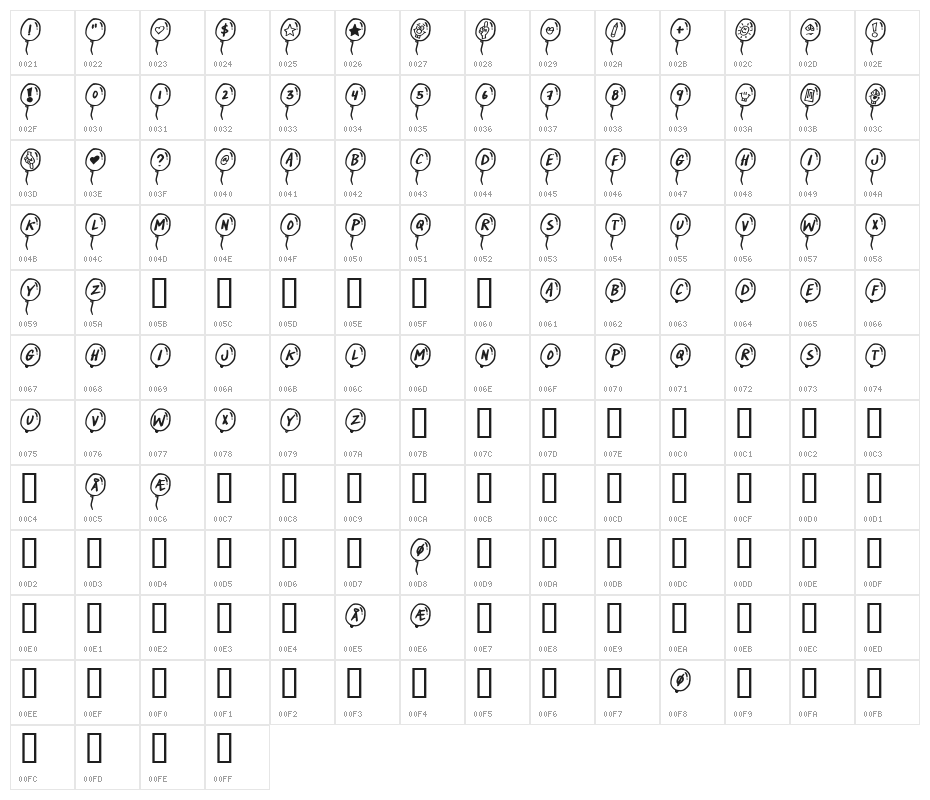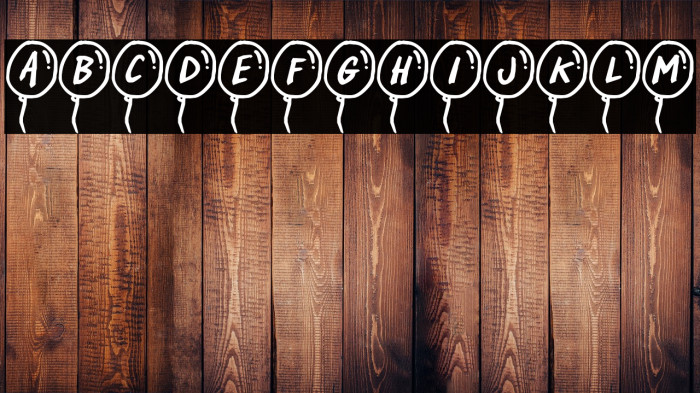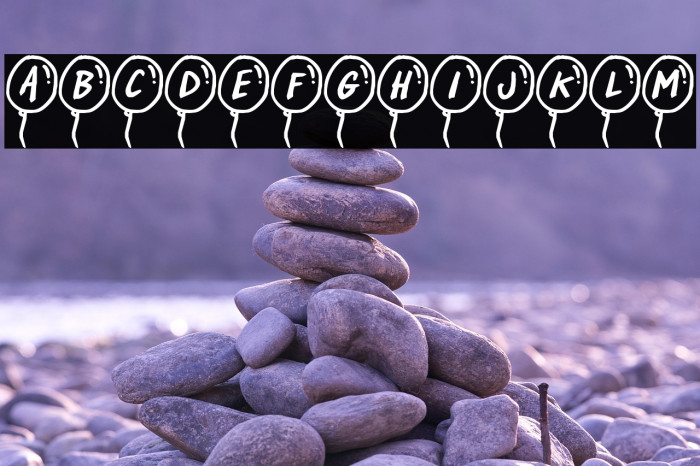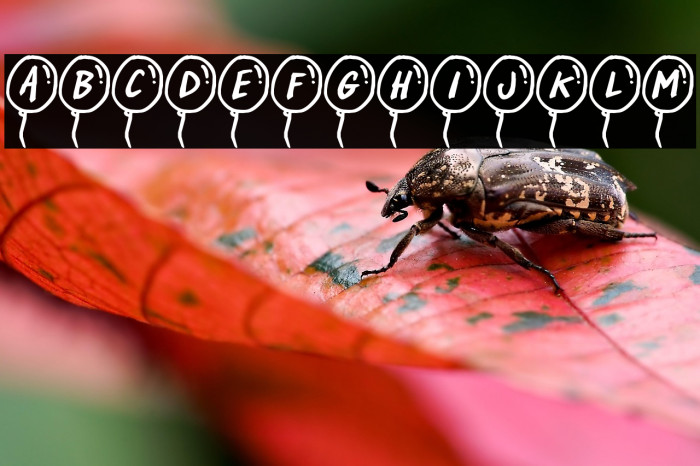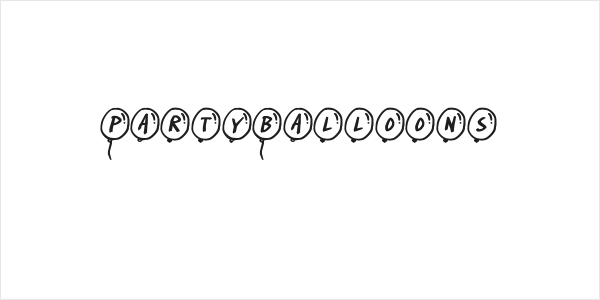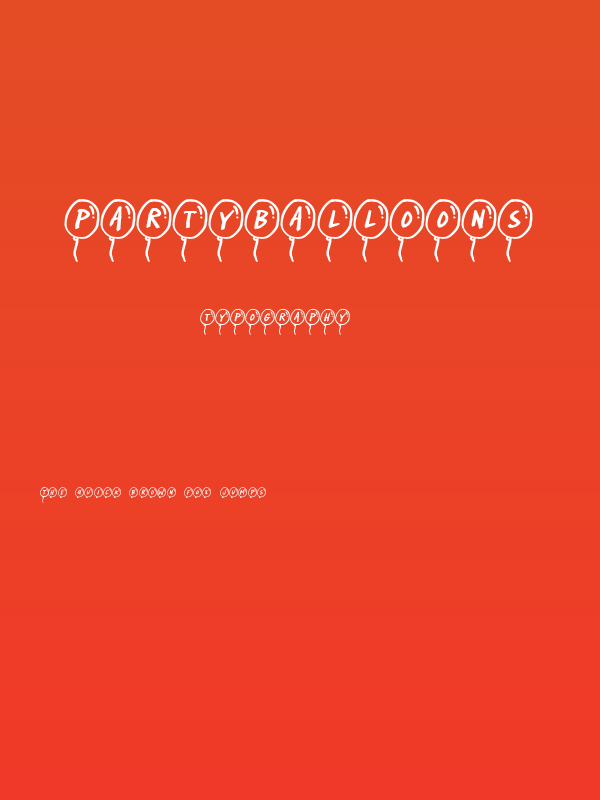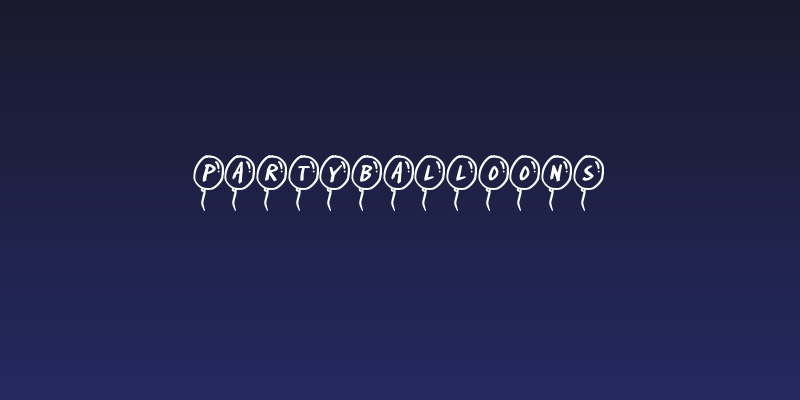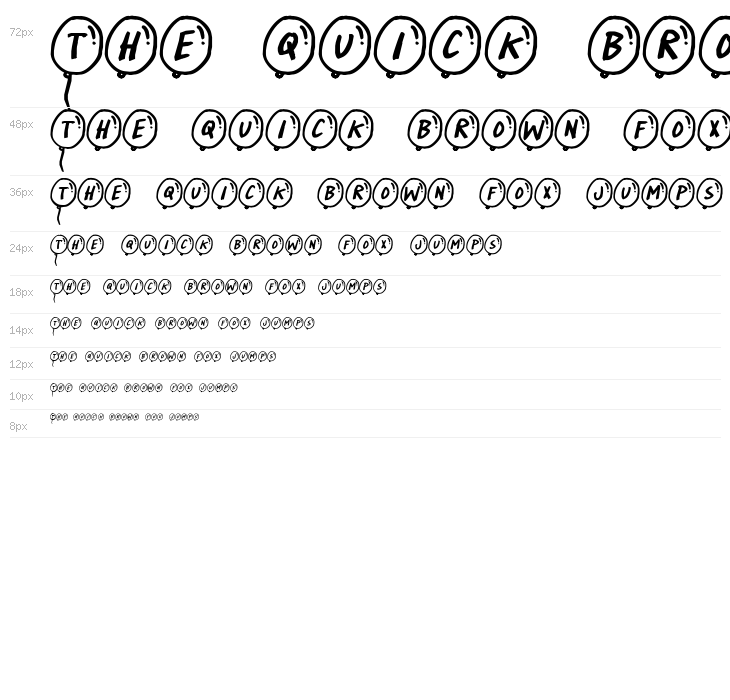
PartyBalloons Font
PartyBalloons Description
This playful and whimsical font features each character enclosed within a balloon shape, complete with a string, giving it a festive and celebratory appearance. The letters are bold and rounded, with a hand-drawn style that adds a touch of fun and informality. The numbers and special characters follow the same balloon theme, maintaining consistency across the entire set. This font is perfect for party invitations, children's events, or any project that requires a lighthearted and joyful touch.
| Overall Style | Playful, Festive |
| Proposed Projects | Ideal for party invitations, children's event posters, playful branding, and festive greeting cards. |